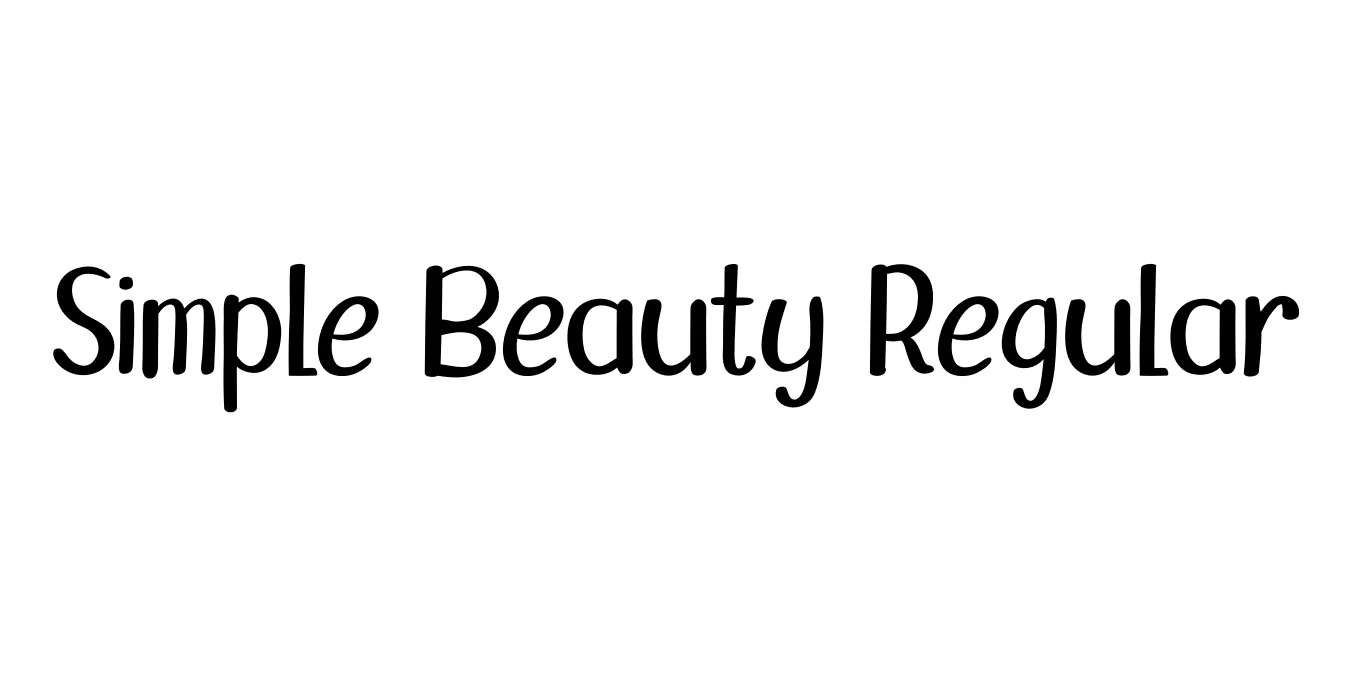
Simple Beauty Regular
Designed by Sronstudio
Simple Beauty Regular is a sophisticated and elegant script typeface designed to bring a touch of class to any creative project. Developed by Sronstudio, this font features flowing lines and delicate strokes that mimic natural handwriting, making it ideal for high-end branding, fashion editorials, and personal invitations.
The versatility of this typeface allows it to transition seamlessly between digital and print media. Whether used for wedding stationery, social media graphics, or boutique product packaging, the font maintains its legibility while providing a personalized, handcrafted feel that resonates with modern aesthetic sensibilities.
Simple Beauty Regular Best Uses
Perfect for invitations, save-the-dates, and elegant place cards.
Ideal for aesthetic Instagram posts, lifestyle quotes, and digital storytelling.
Excellent for logo design in the beauty, fashion, and jewelry industries.
Adds a high-end personal touch to boutique product labels and gift boxes.